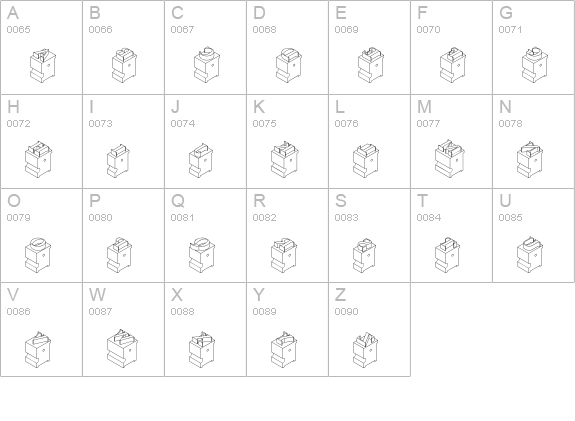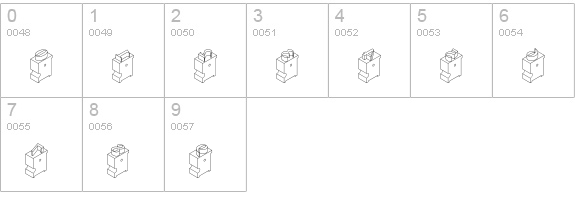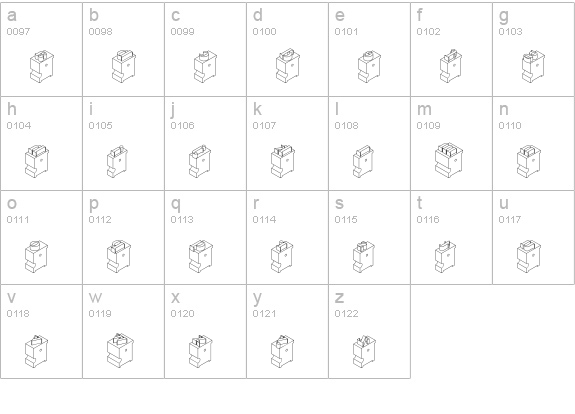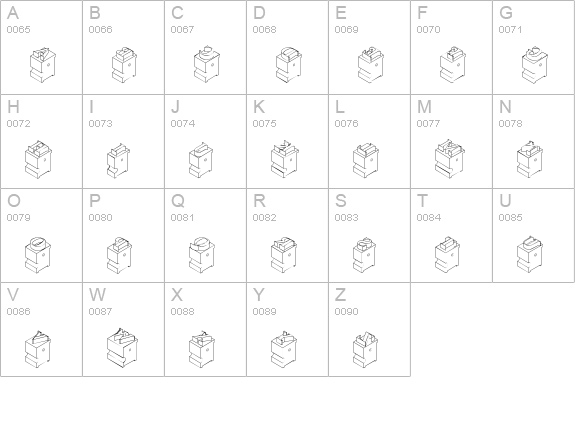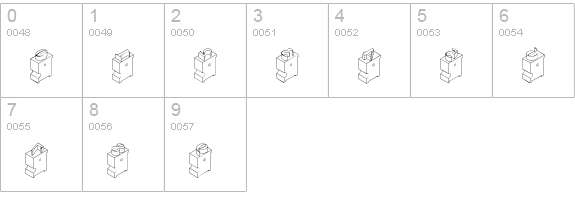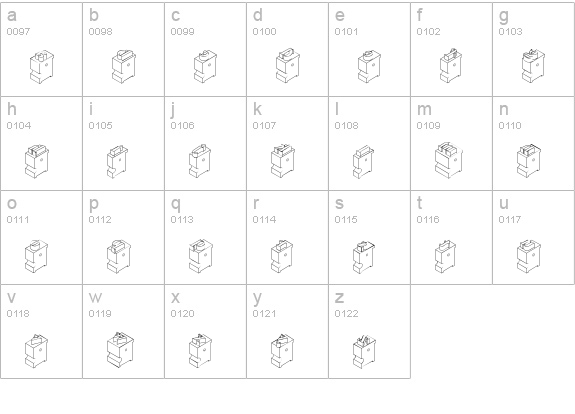
LeadTypeRight is a versatile and elegant font that exudes sophistication and modernity. Its sleek lines and sharp angles make it perfect for a wide range of design projects, from logos to branding to editorial layouts. The geometric shapes and clean design of this font give it a contemporary and professional look that is sure to make your work stand out. What sets LeadTypeRight apart is not only its stunning aesthetics but also its accessibility. This font is available for free download at FontsMarket.com, making it easy for designers and creatives to incorporate it into their projects without breaking the bank. Whether you're a seasoned professional or just starting out in the world of design, LeadTypeRight is a must-have font that will elevate your work to the next level.